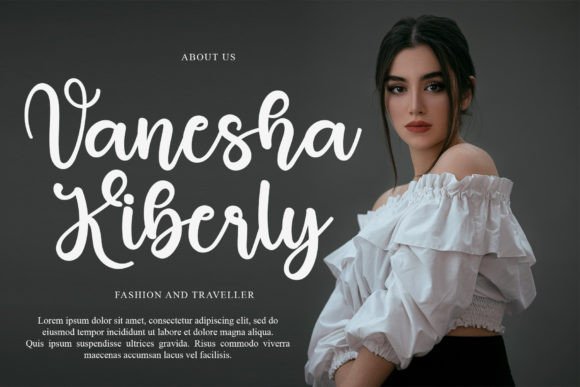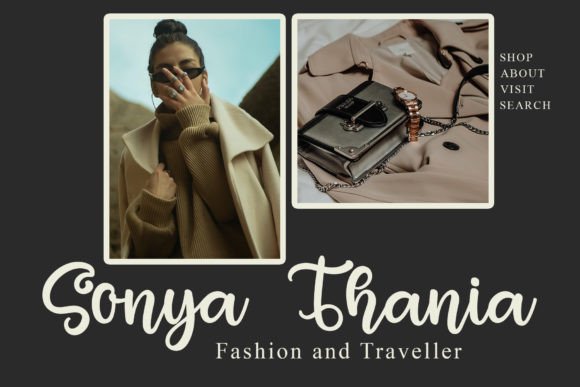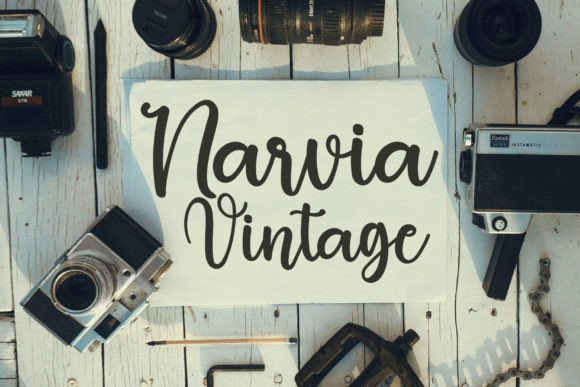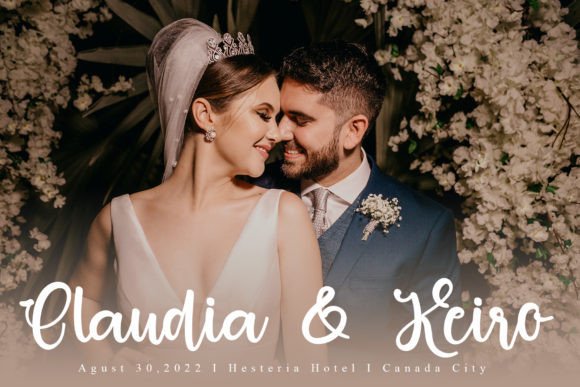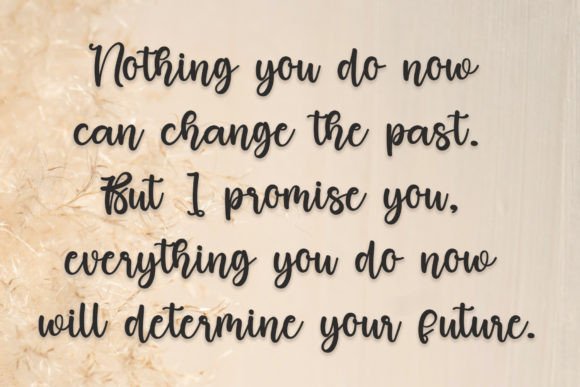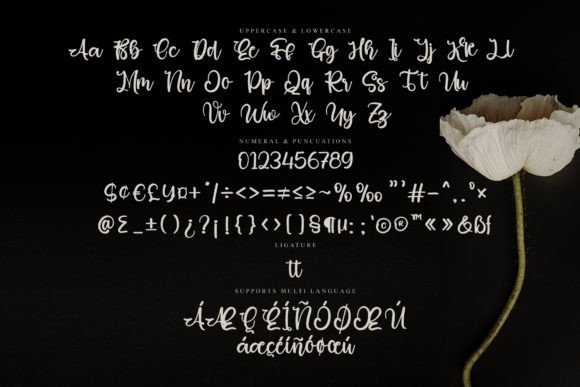
The Perfect Script: Unveiling Beguile Font
Have you ever found yourself scribbling in your journal, the pen gliding effortlessly across the page as you pour your heart out onto the paper? That’s exactly the feeling I’m hoping you’ll capture with the Beguile Font – a stylish and dainty script font that’s sure to add a touch of elegance to your projects.
Beguile Font is designed for those who crave a beautiful script taste in their work, whether it’s a logo, branding project, label, photography, or special event. With its PUA encoded feature, accessing all the glyphs and swashes is a breeze, giving you the creative freedom to experiment and express yourself. As a designer, you’ll appreciate the versatility and sophistication that Beguile Font brings to the table.
- Unique Characteristics: Beguile Font features a unique, hand-drawn design with intricate details and subtle flourishes, making it perfect for creative and artistic applications.
Beguile Font Review
I recently had the chance to work with the Beguile Font, and I must say it’s a unique addition to any design project. ✨ One of its standout features is its elegant and whimsical feel, making it perfect for luxury or fantasy-themed designs. The font’s intricate details and flowing lines evoke a sense of sophistication and playfulness at the same time.
Another aspect I appreciate is the Beguile Font’s versatility. ✨ It comes in a range of weights and styles, allowing designers to experiment with different moods and atmospheres. From delicate headings to bold body text, the font adapts seamlessly to various design contexts.
However, I do have a few concerns: ⚠️ The Beguile Font’s complexity can sometimes make it difficult to read, especially at smaller sizes. This might be a challenge for designers working on projects with limited screen real estate or for readers with visual impairments. Additionally, the font’s ornate details may not be suitable for projects that require a more straightforward or minimalist aesthetic.
- Works well for: luxury, fantasy, or whimsical-themed designs
- Excellent for: creating a sophisticated and playful atmosphere
- Recommended for: designers who value elegance and intricacy in their typography
Overall, I’d give the Beguile Font a solid 4 out of 5 stars. While it may not be perfect for every design project, its unique charm and versatility make it a valuable addition to any designer’s toolkit.
Tips for Getting the Most Out of Beguile Font
1. Experiment with different font sizes and styles to achieve a unique look.
2. Pair Beguile Font with other elegant fonts to create a sophisticated design.
3. Use Beguile Font to add a touch of luxury and sophistication to your designs.
Beguile Font is ideal for:
1. Luxury branding and marketing materials.
2. Elegant invitations and event materials.
3. High-end product packaging and labeling.